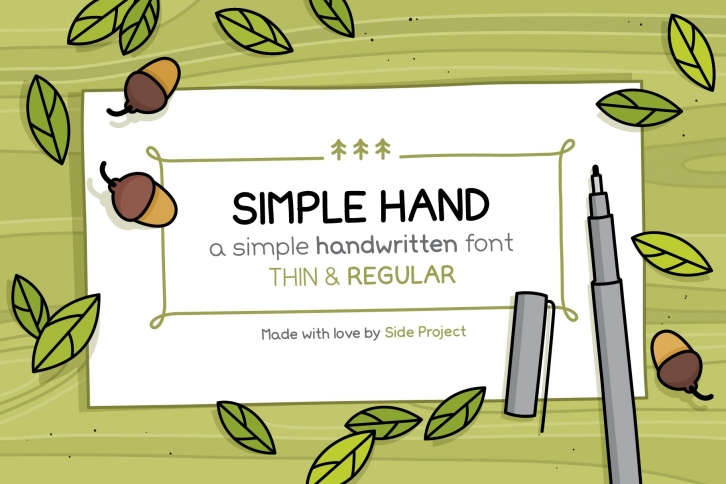
Hello everyone! We present to you Simple Hand. Simple Hand is a simple sans serif handwritten font. Readable and tidy but aslo fun! Thin and regular versions (.TTF .OTF and .WOFF).
With over 300 glyphs (which include: uppercase and lowercase letters, numbers, symbols and accented characters) this font supports multiple languages: Afrikaans, Basque, Breton, Catalan, Croatian, Czech, Danish, Dutch, English, Estonian, Finnish, French, Gaelic, German, Hungarian, Icelandic, Indonesian, Irish, Italian, Latvian, Lithuanian, Norwegian, Polish, Portuguese, Romanian, Sami, Serbian (Latin), Slovak, Slovenian, Spanish, Swahili, Swedish and Turkish.